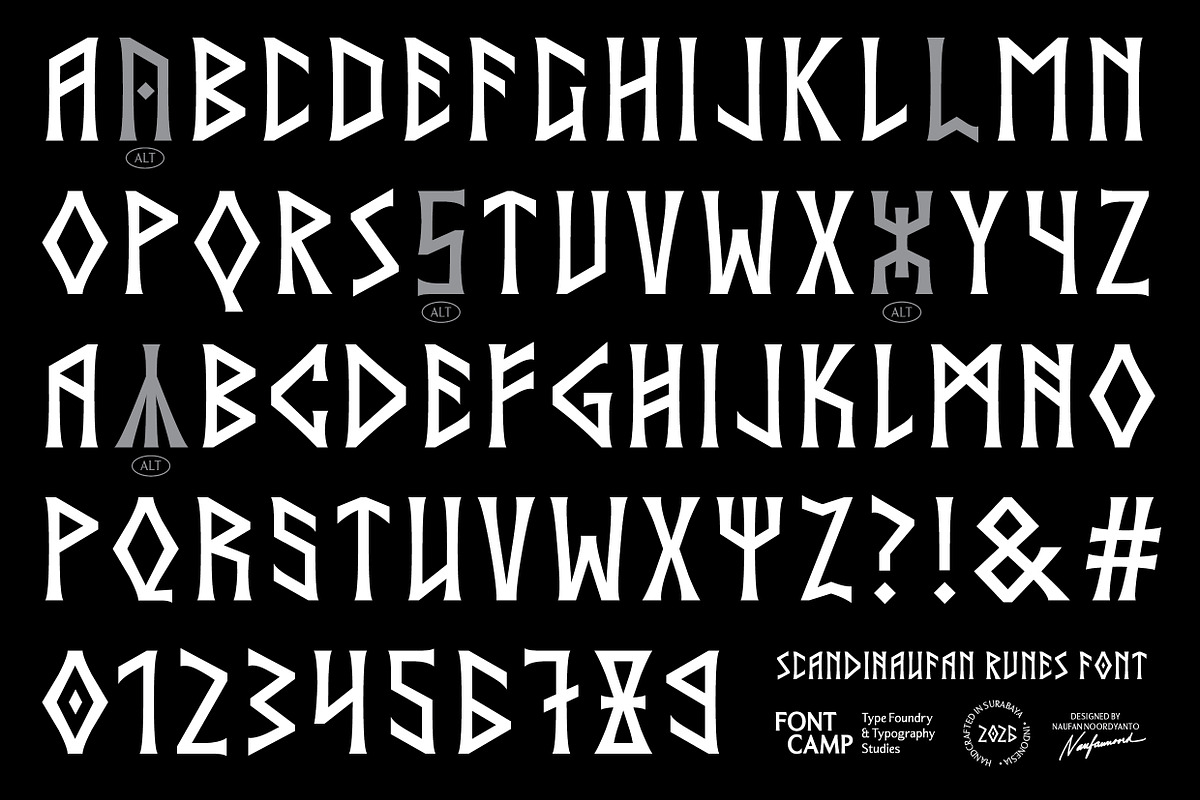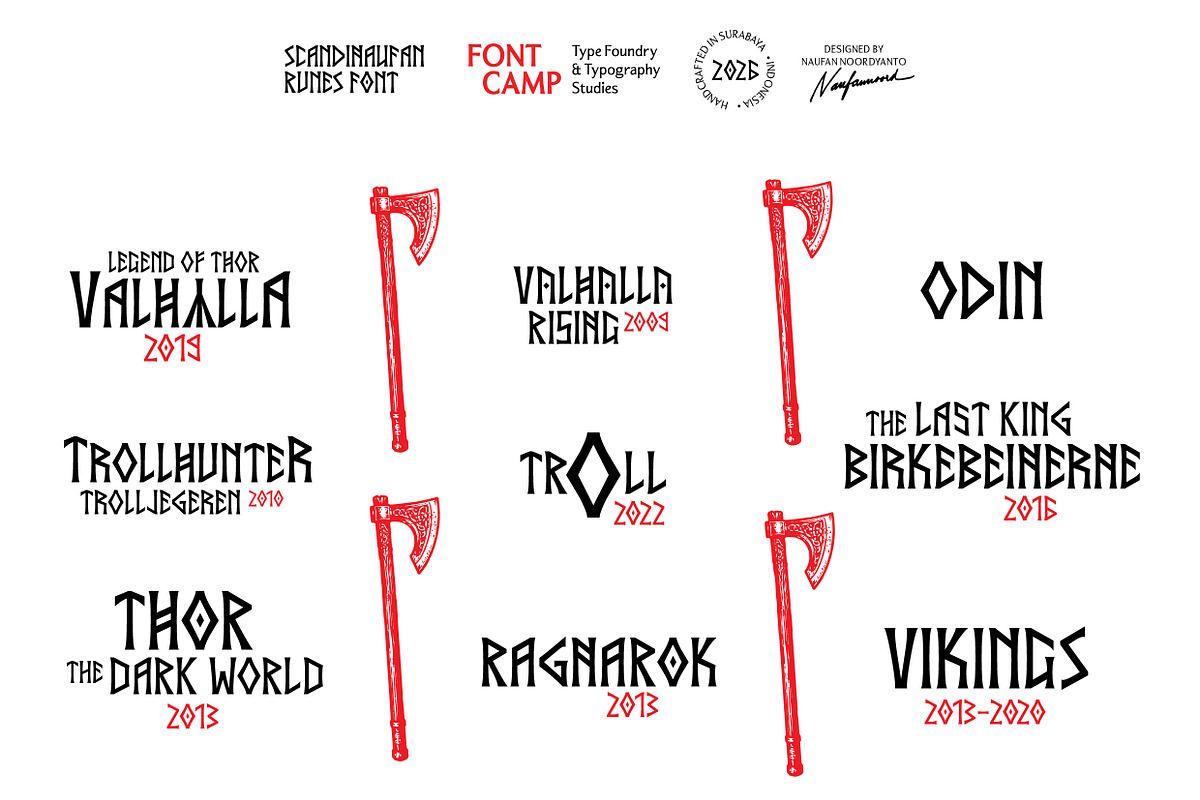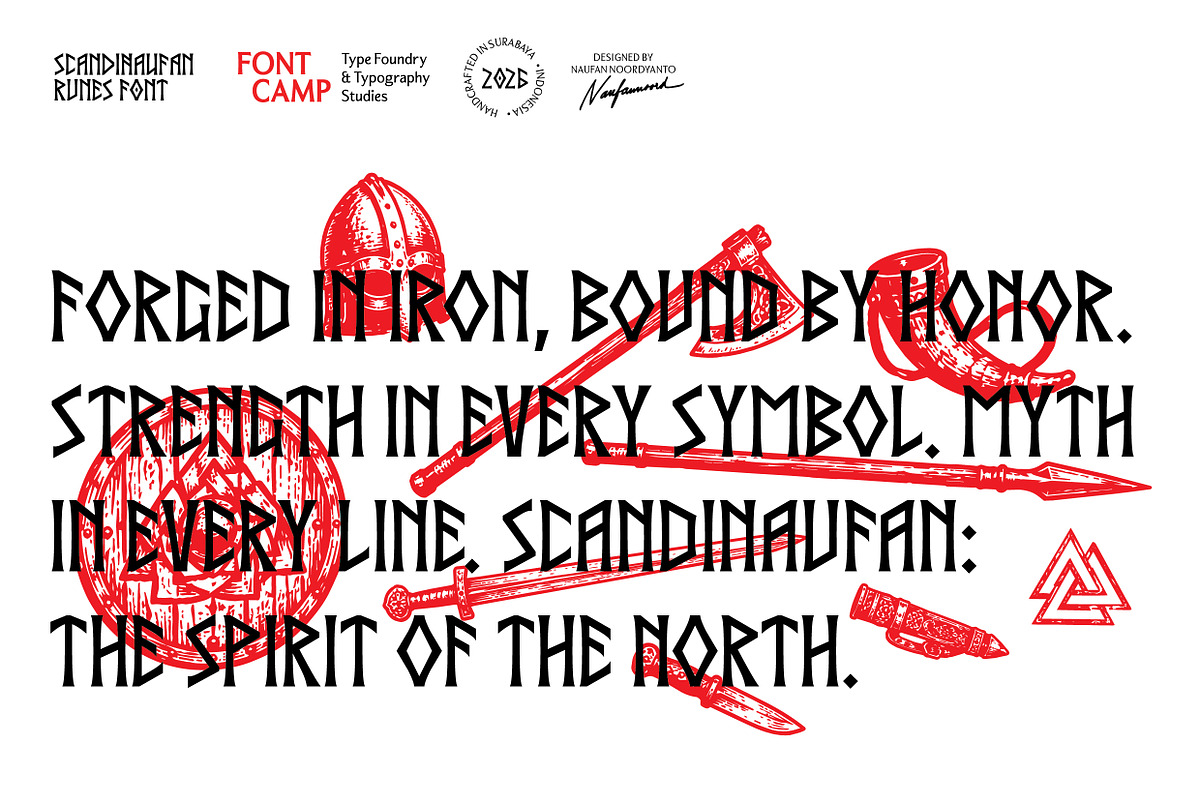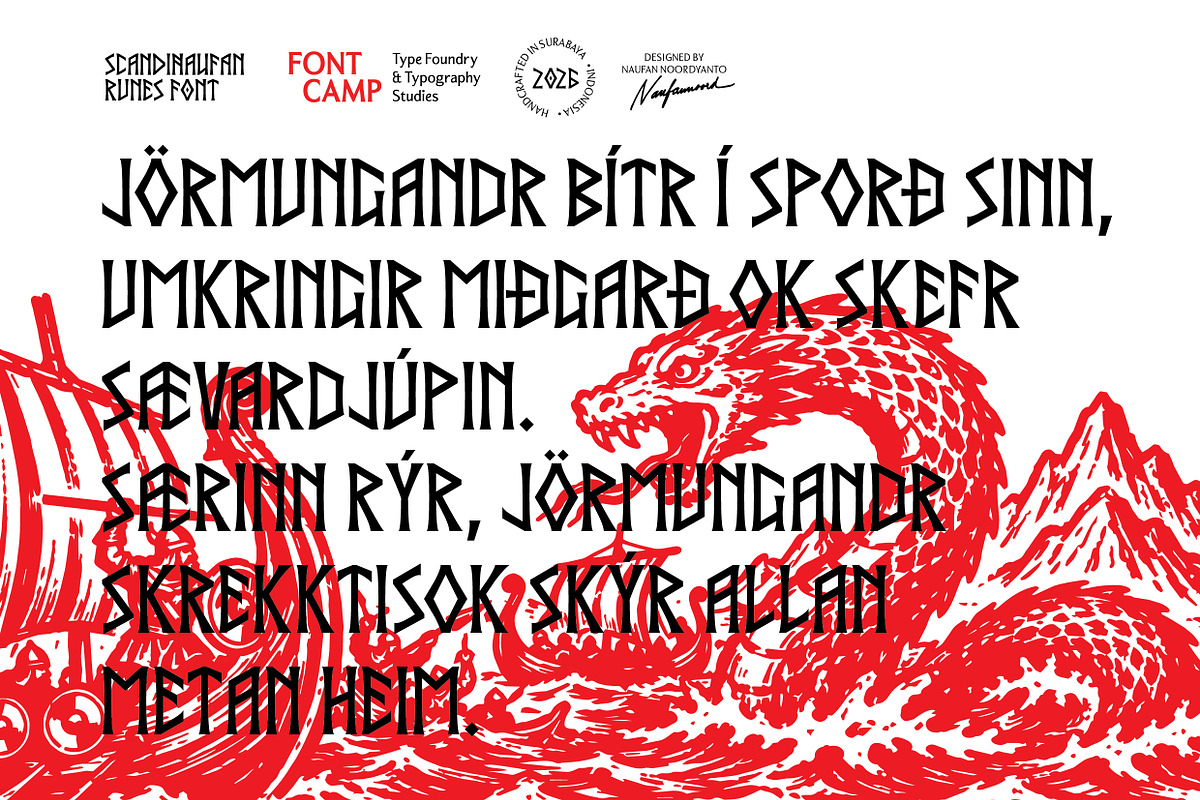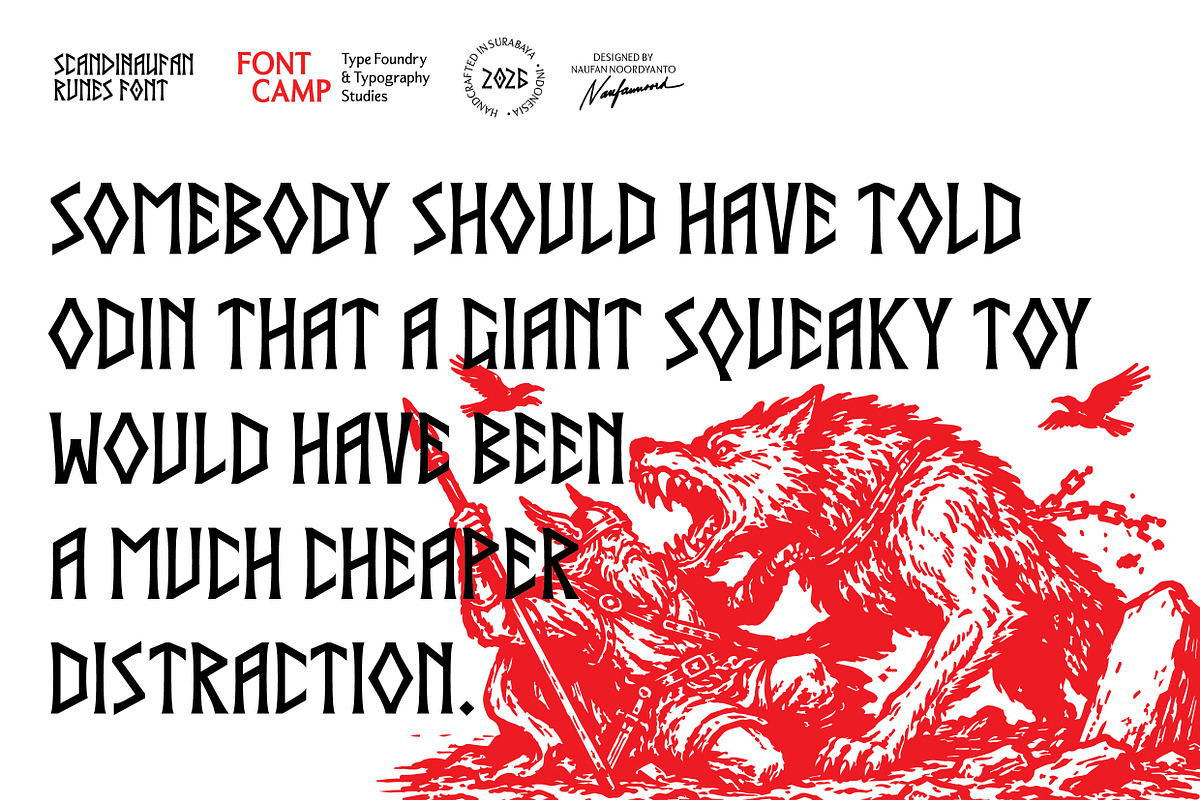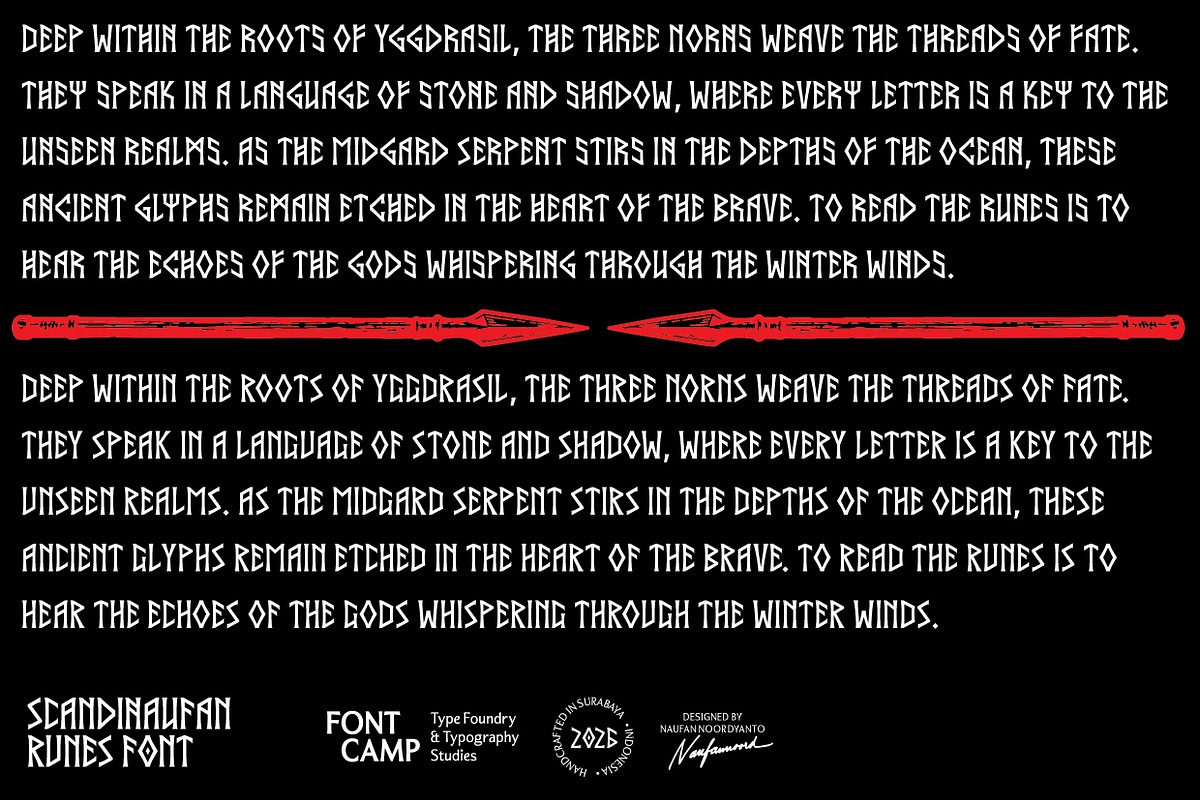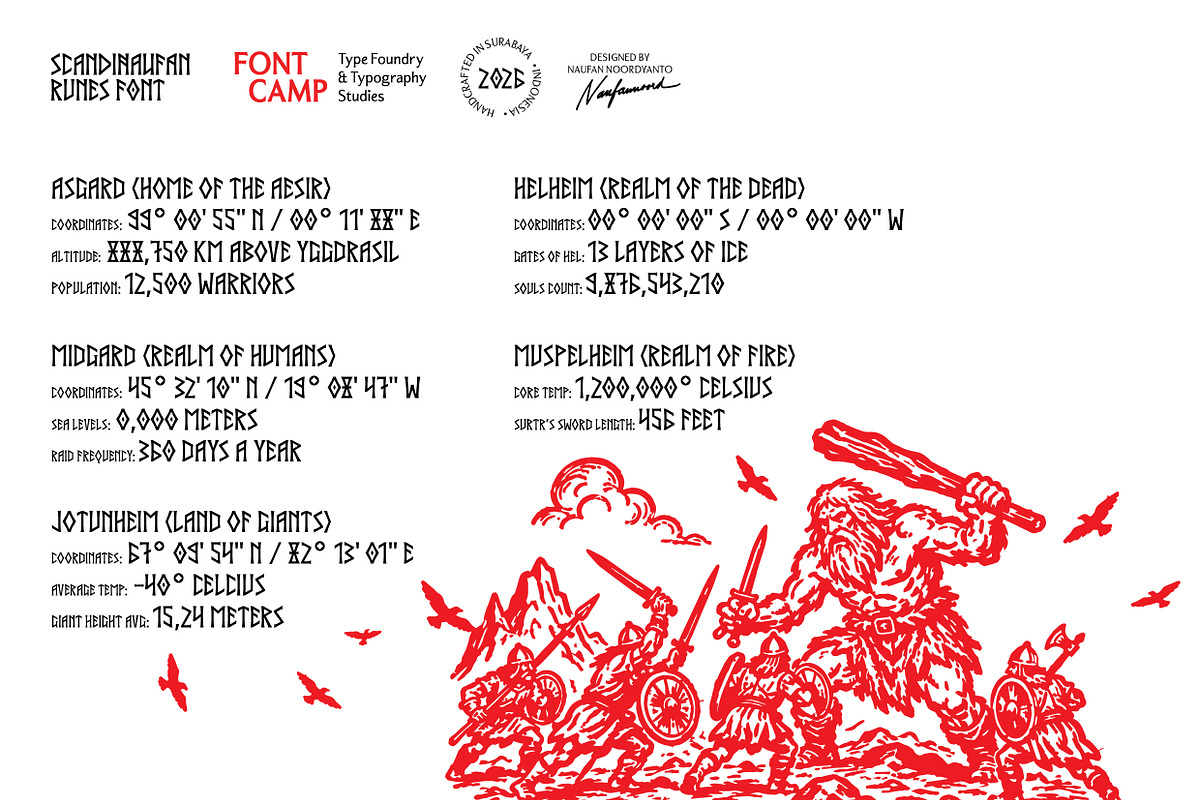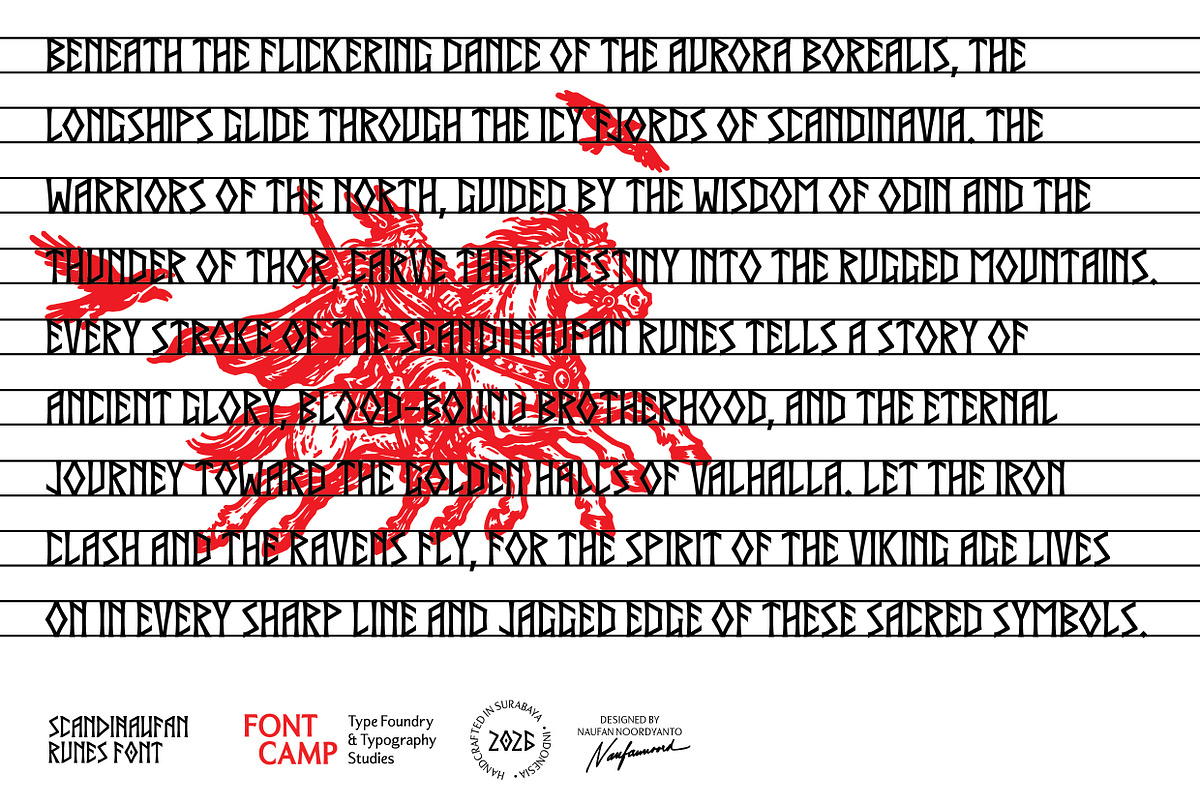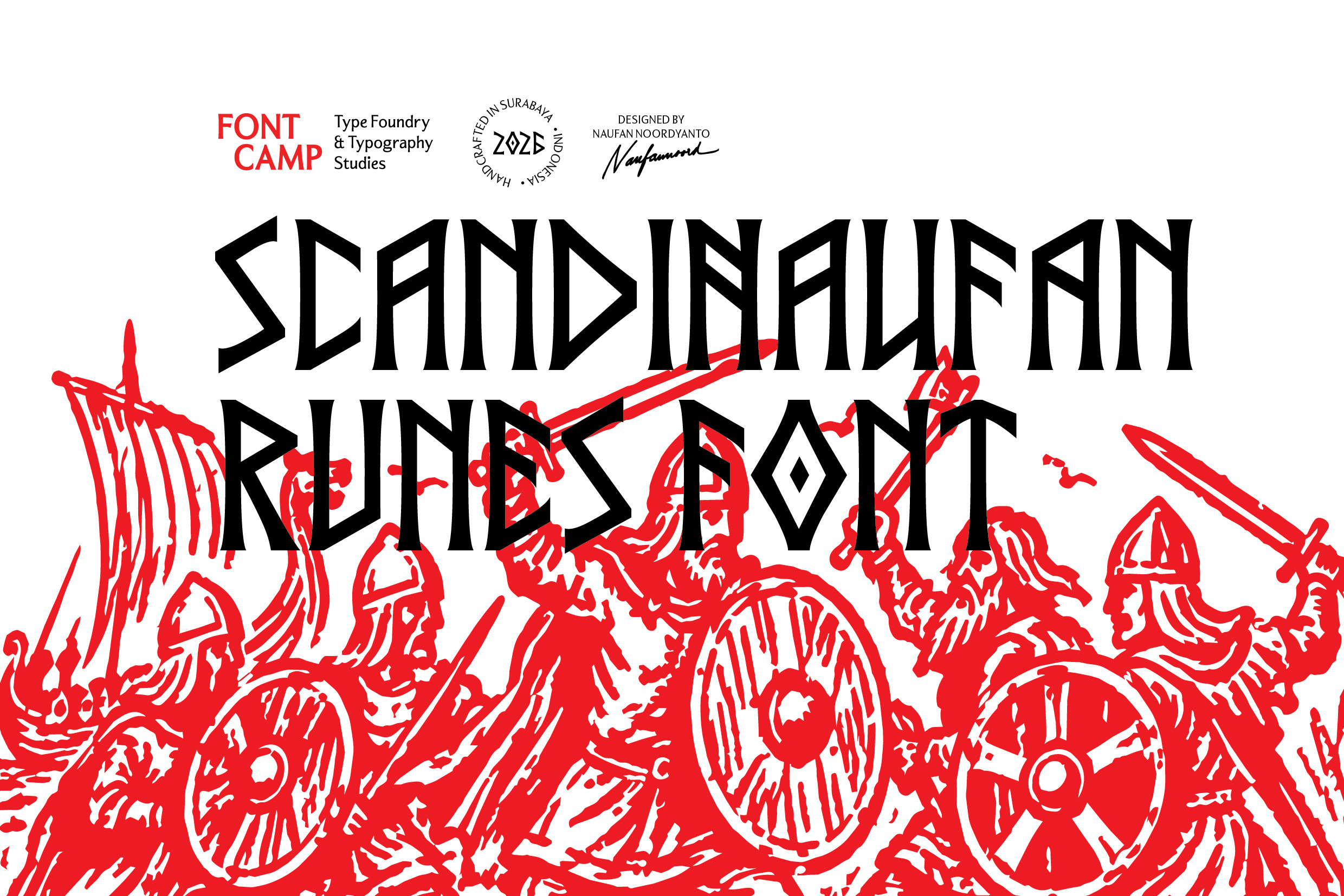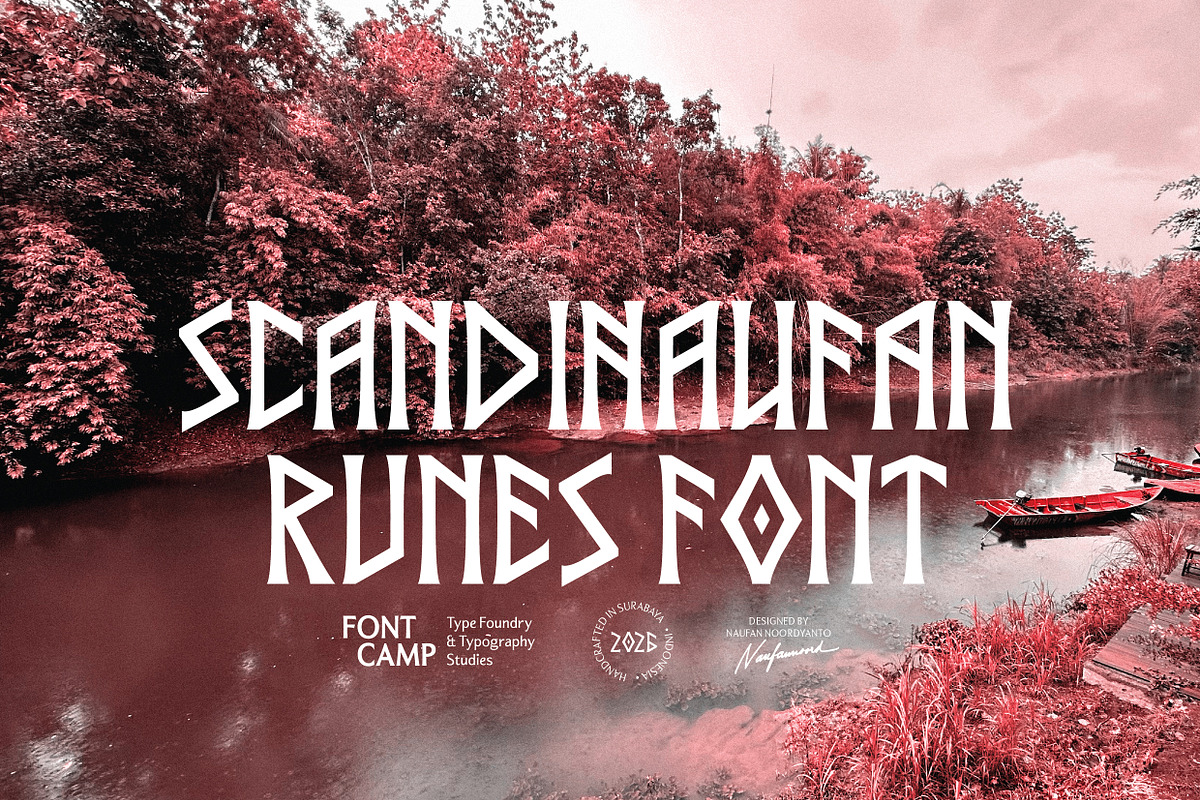
Scandinaufan Runes Font
Introducing an "SCANDINAUFAN RUNES" Font.
DESCRIPTION:
Scandinaufan Runes is a powerful display typeface that carefully blends the structure of modern Latin alphabets with the sharp, jagged aesthetics of historic Elder Futhark inscriptions. Built entirely on aggressive diagonals, geometric angles, and distinctive runic motifs—such as its signature diamond-shaped counters—this font completely rejects soft curves to echo the raw energy of ancient stone carvings and Viking craftsmanship.
Exuding a bold, masculine, and mystical aura, the font is highly optimized for impact-driven designs. It serves as an exceptional choice for thematic headlines, dark fantasy branding, gaming interfaces, and heavy metal merchandise where an authentic tone of ancient heritage and legendary strength is required.
"Scandinaufan Runes" is a typeface/font that uniquely merges the aesthetic beauty and symbolism of Scandinavian runic script with a modern and personal design, envisioned by Naufan. The name itself is a synthesis of the original term "Scandinavian" and the designer's name.
Expansive character library: engineered with 429 meticulously crafted glyphs, providing full coverage for high-impact displays, distinctive runic motifs, numerical figures, and comprehensive punctuation.
Commanding All-Caps design: specially structured as a full uppercase typeface, optimized for heavy headlines, bold logotypes, and tactical branding.
Global linguistic support: built with an extended character set to ensure seamless compatibility with multiple languages.